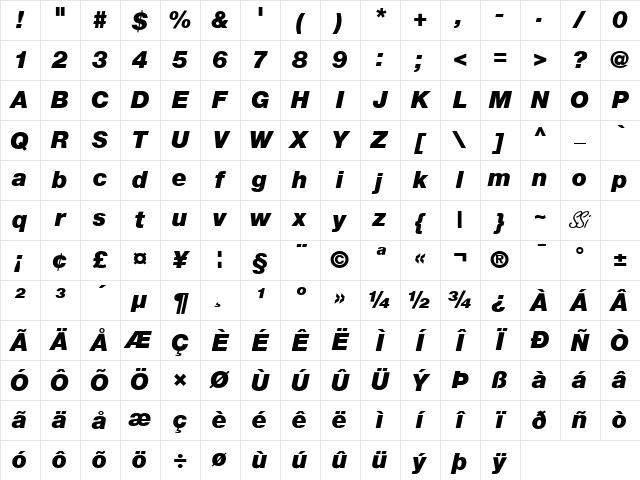
Context Reprise Black SSi Black Italic
Context Reprise Black SSi Family
Design Context for Context Reprise Black SSi
Context Reprise Black SSi is a composed and adaptable typeface that performs quietly and consistently across a wide range of design contexts. The slanted form adds forward momentum and visual energy.
Pro Tip: Use Context Reprise Black SSi for emphasis, pull quotes, and subheadings where its slanted energy can add rhythm to the layout.